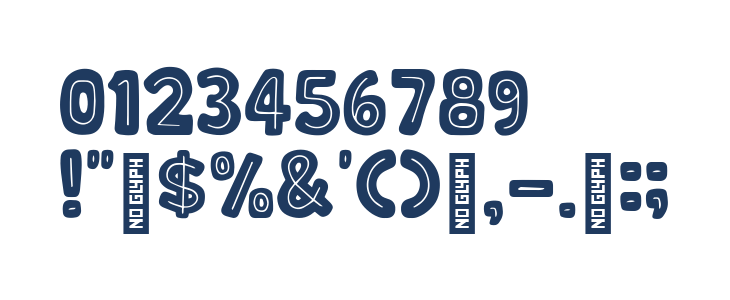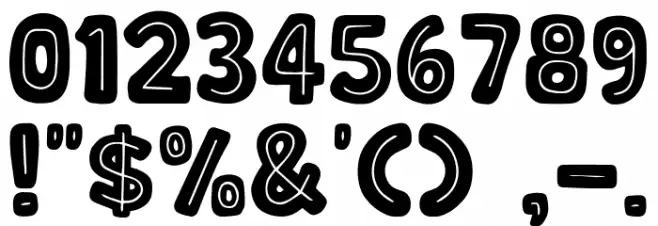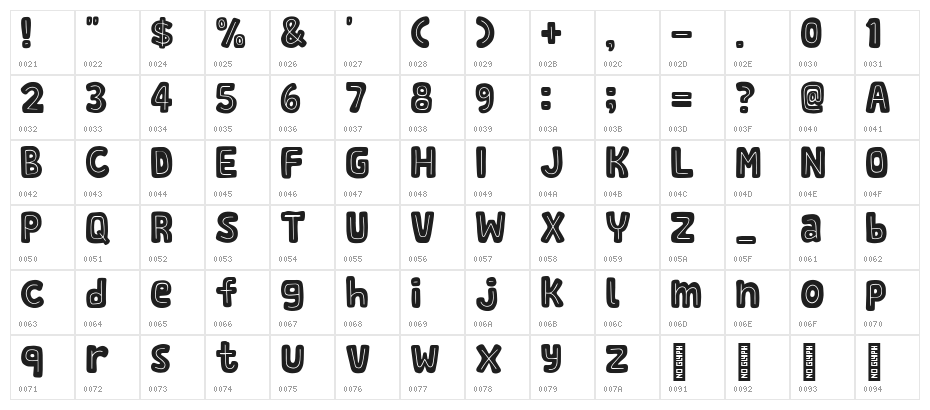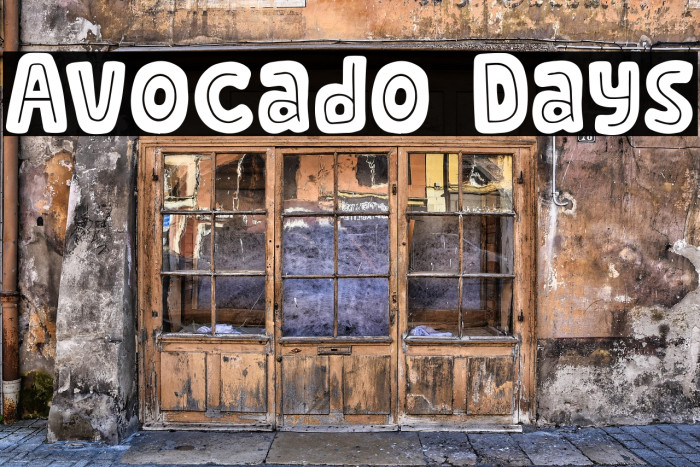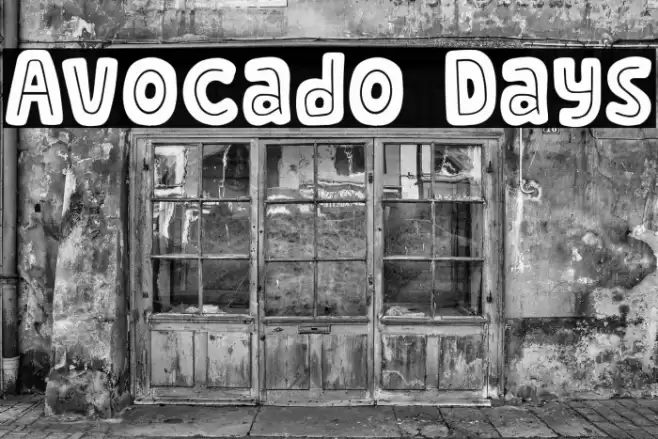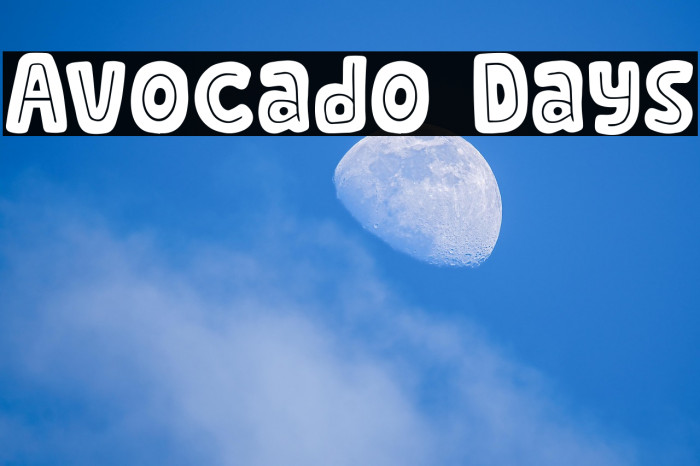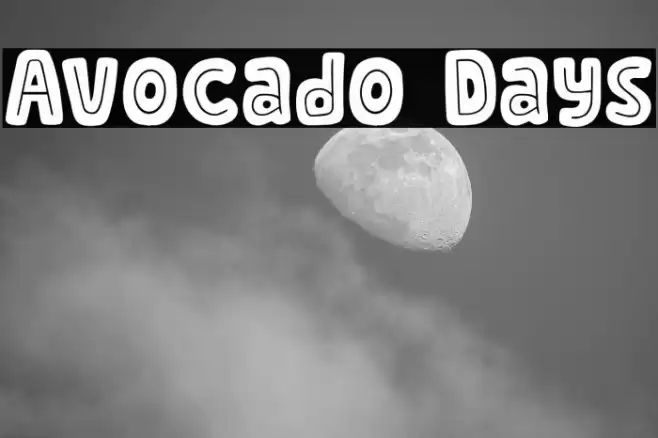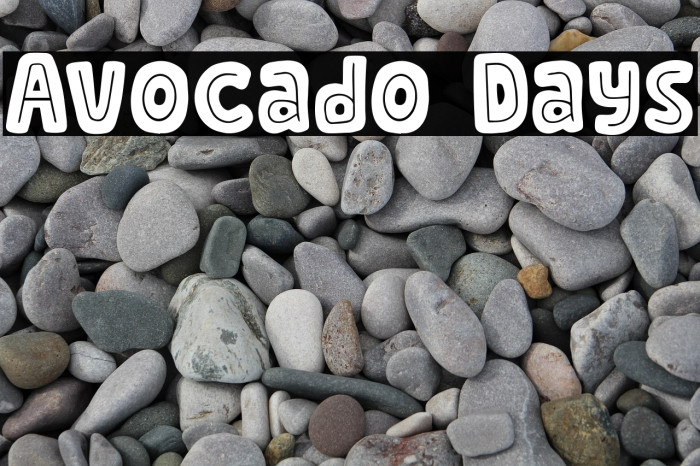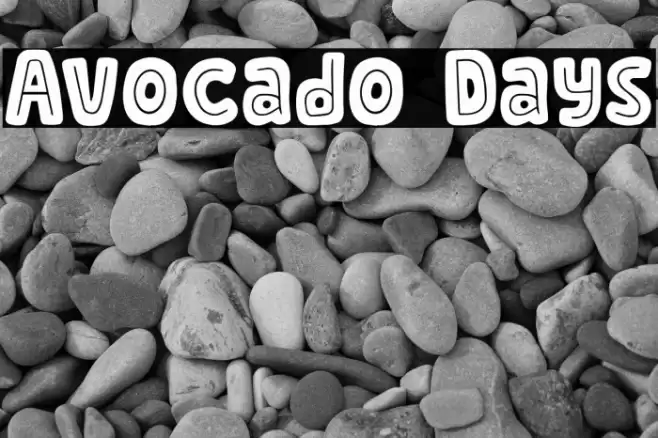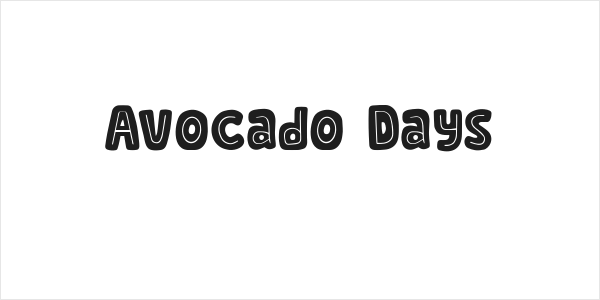
Avocado Days Font
Avocado Days Description
This font features a playful and bold style with rounded edges and a thick outline, giving it a cartoonish and friendly appearance. The characters are uniformly bold, with a consistent stroke width that adds to its approachable and informal look. The uppercase and lowercase letters maintain a cohesive design, while the numerals and special characters follow the same stylistic approach. The font's design is reminiscent of hand-drawn lettering, making it suitable for projects that require a fun and engaging visual element. Its boldness ensures high readability, even at smaller sizes, while the rounded forms contribute to a warm and inviting feel.
| Overall Style | Playful, Cartoonish |
| Proposed Projects | Ideal for children's books, comic strips, playful branding, and casual invitations. |